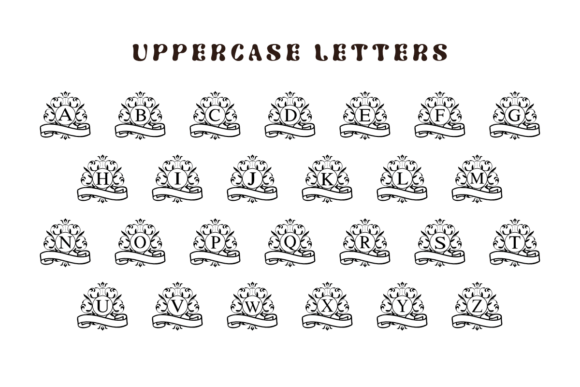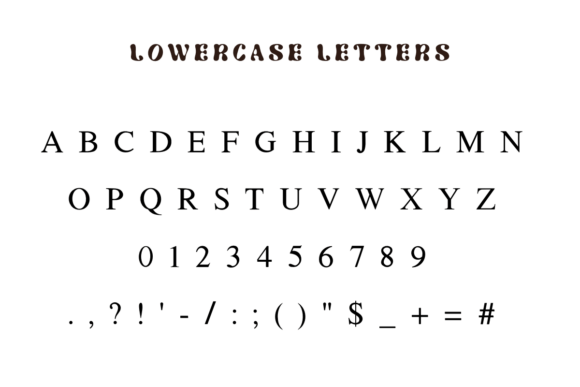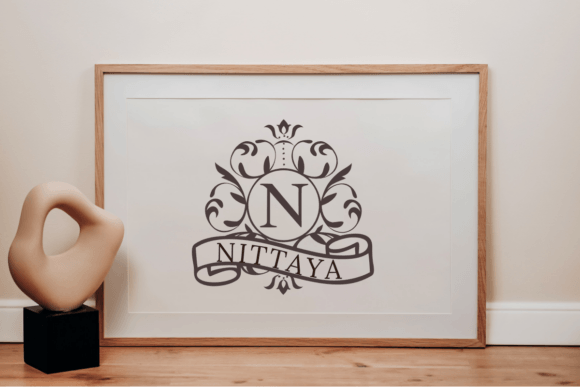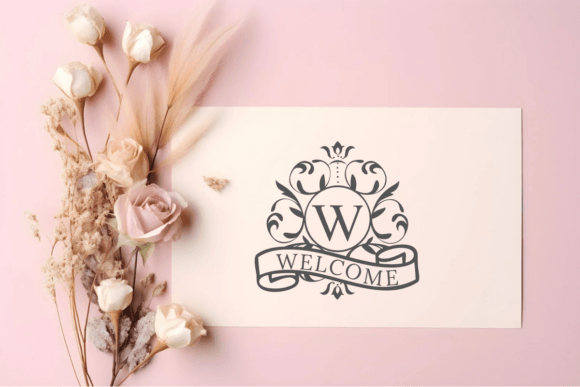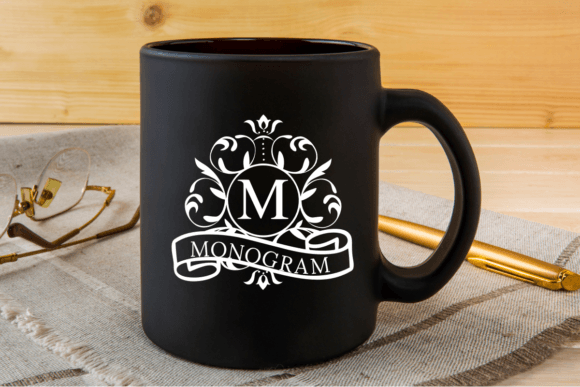
Elevate Your Creativity with Artistic Monogram Font
Are you a designer, crafter, or DIY enthusiast looking for a unique and creative way to add a personal touch to your projects? Look no further than the Artistic Monogram Font! This decorative font is perfect for taking your notes, diary entries, and greeting cards to the next level. But its uses don’t stop there – with Artistic Monogram, the possibilities are endless.
What is Artistic Monogram Font?
Artistic Monogram Font is a beautifully designed decorative font that features intricate and elegant monogram designs. Its unique and stylish aesthetic makes it perfect for adding a touch of sophistication to any project. Whether you’re a seasoned designer or a crafty DIY enthusiast, this font is sure to inspire your creativity.
Uses for Artistic Monogram Font
So, what can you do with Artistic Monogram Font? The answer is – plenty! Here are just a few ideas to get you started:
- Note-taking and journaling: Add a touch of elegance to your notes and diary entries with Artistic Monogram Font. Perfect for bullet journaling, scrapbooking, and more.
- Greeting cards and invitations: Create beautiful, one-of-a-kind greeting cards and invitations for special occasions like birthdays, weddings, and holidays.
- Banners and signs: Use Artistic Monogram Font to create eye-catching banners and signs for parties, events, and more.
- Social media posts: Add a touch of style to your social media posts and stories with Artistic Monogram Font.
- Merchandise and products: Use Artistic Monogram Font to create custom mugs, t-shirts, cards, and other products.
- Stationery and paper crafts: Add a touch of elegance to your stationery, letters, and paper crafts with Artistic Monogram Font.
Why Choose Artistic Monogram Font?
So, why choose Artistic Monogram Font for your projects? Here are just a few reasons:
- Unique and stylish: Artistic Monogram Font features a unique and stylish aesthetic that’s sure to make your projects stand out.
- Easy to use: With Artistic Monogram Font, you can easily add a touch of elegance to your projects – no advanced design skills required!
- Versatile: Use Artistic Monogram Font for a wide range of projects, from note-taking and journaling to merchandise and products.
- Customizable: Experiment with different colors, sizes, and styles to make Artistic Monogram Font your own.
Tips and Tricks for Using Artistic Monogram Font
Here are a few tips and tricks for getting the most out of Artistic Monogram Font:
- Experiment with different sizes and colors: Try out different sizes and colors to see what works best for your project.
- Combine with other fonts: Mix and match Artistic Monogram Font with other fonts to create a unique and stylish look.
- Use for emphasis: Use Artistic Monogram Font to add emphasis to important words or phrases in your projects.
- Have fun!: Don’t be afraid to get creative and try new things with Artistic Monogram Font.
Artistic Monogram Font is a versatile and stylish decorative font that’s perfect for designers, crafters, and DIY enthusiasts. With its unique and elegant aesthetic, it’s easy to add a touch of sophistication to any project. Whether you’re taking notes, creating greeting cards, or making merchandise, Artistic Monogram Font is the perfect choice. So why wait? Download Artistic Monogram Font today and start elevating your creativity!